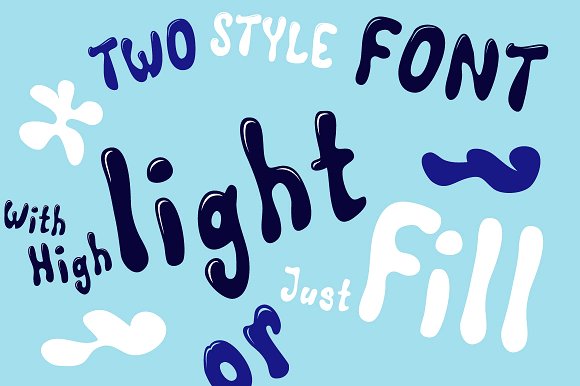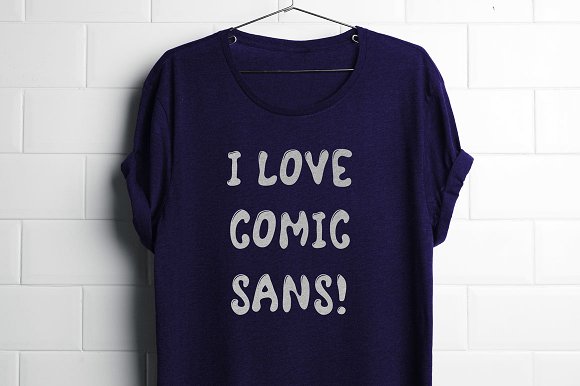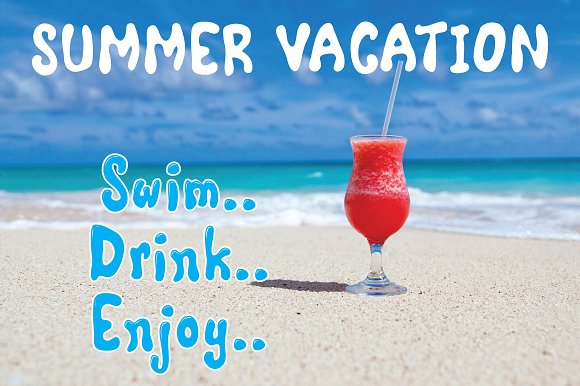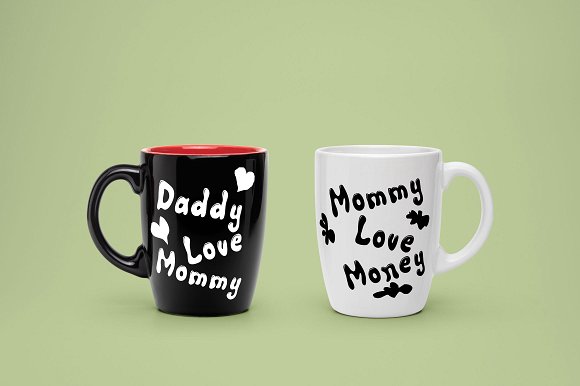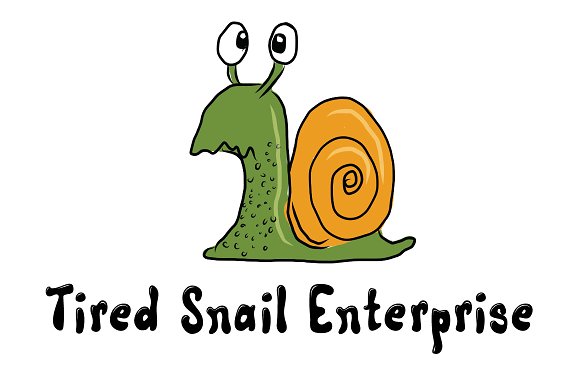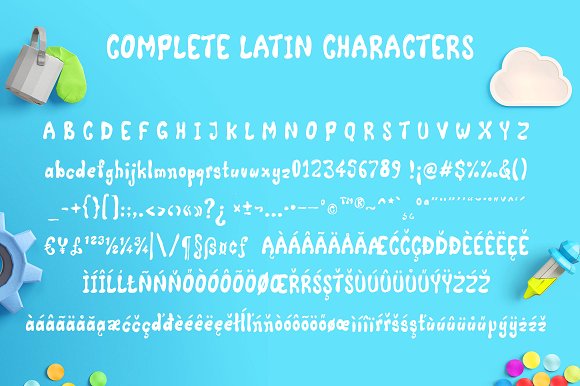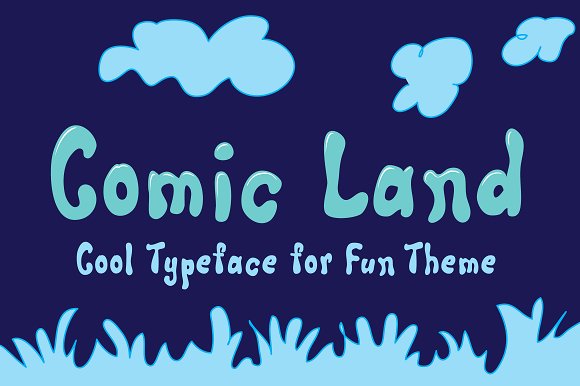
Introducing Comic Land Font: A Fun and Playful Typeface by Darwinoo
Are you tired of using the same old fonts in your designs? Look no further than Comic Land font, a fun and playful typeface created by Darwinoo. This font is perfect for designers and crafters who want to add a touch of whimsy and personality to their work. In this article, we’ll take a closer look at Comic Land font, its features, and how you can use it to take your designs to the next level.
What is Comic Land Font?
Comic Land font is a digital typeface designed by Darwinoo, a talented font creator. This font is inspired by the classic comic books and is designed to bring a sense of fun and playfulness to your designs. With its bold lines, bright colors, and quirky lettering, Comic Land font is sure to grab attention and make your designs stand out.
Features of Comic Land Font
So, what makes Comic Land font so special? Here are some of its key features:
- Unique lettering style: Comic Land font has a distinctive lettering style that’s reminiscent of classic comic books. Each letter is carefully crafted to bring a sense of fun and energy to your designs.
- Bold and playful: This font is perfect for headlines, titles, and other design elements where you want to make a statement. It’s bold, playful, and sure to grab attention.
- High-quality design: Comic Land font is designed with high-quality craftsmanship in mind. Each letter is carefully crafted to ensure that it’s crisp, clear, and easy to read.
- Versatile: This font is versatile and can be used in a variety of design projects, from posters and flyers to digital graphics and more.
Who Can Use Comic Land Font?
Comic Land font is perfect for a variety of designers and crafters, including:
- Graphic designers: If you’re a graphic designer looking for a fun and playful font to add to your collection, Comic Land font is a great choice.
- Digital artists: Digital artists who want to add a touch of whimsy to their work will love Comic Land font.
- Crafters: Crafters who enjoy making DIY projects, such as handmade cards and gift tags, will appreciate the playful and fun nature of Comic Land font.
- Small business owners: Small business owners who want to add a personal touch to their branding and marketing materials will find Comic Land font to be a great asset.
How to Use Comic Land Font
Using Comic Land font is easy. Here are a few tips to get you started:
- Pair it with other fonts: Comic Land font pairs well with other fonts, such as sans-serif fonts and script fonts. Experiment with different pairings to find the one that works best for your design.
- Use it for headlines: Comic Land font is perfect for headlines and titles. Use it to grab attention and add visual interest to your designs.
- Add color: Comic Land font looks great with bright, bold colors. Experiment with different color schemes to find the one that works best for your design.
Comic Land font is a fun and playful typeface that’s perfect for designers and crafters who want to add a touch of whimsy to their work. With its unique lettering style, bold and playful design, and high-quality craftsmanship, Comic Land font is sure to become a favorite in your font collection. So why wait? Download Comic Land font today and start creating fun and engaging designs that will capture the attention of your audience.
Overall, Comic Land font is a great addition to any design project. Its unique and playful style is sure to bring a smile to your audience’s faces. So, what are you waiting for? Give Comic Land font a try today and see how it can elevate your designs!